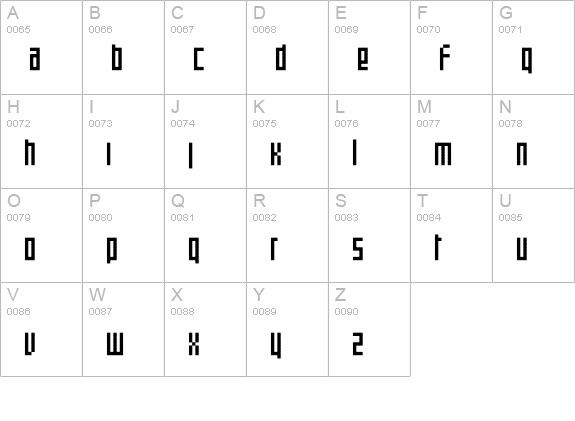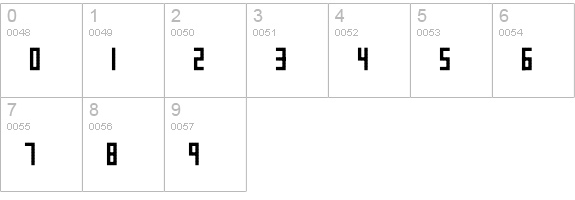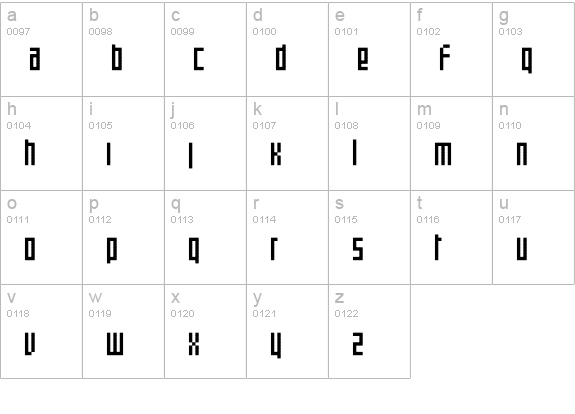
clickscape Font Details
Introducing Clickscape Font, a modern and versatile typeface that is perfect for a wide range of design projects. This unique font features clean lines and a sleek appearance, making it ideal for both digital and print applications. Whether you're creating a website, designing a logo, or crafting a poster, Clickscape Font is sure to make your text stand out. Best of all, Clickscape Font is completely free to download at FontsMarket.com. This means you can add this stylish font to your collection without any cost, allowing you to enhance your creative projects without breaking the bank. Don't miss out on this fantastic opportunity to elevate your designs with Clickscape Font – download it today and see the difference it can make!